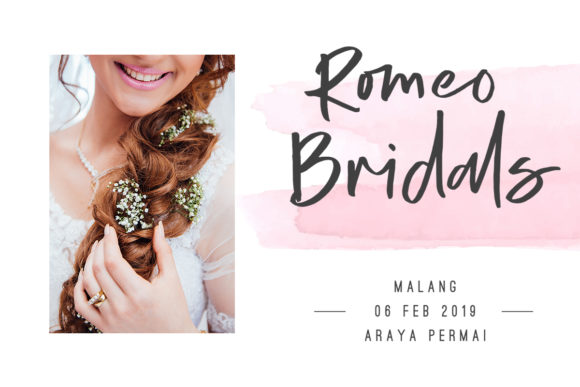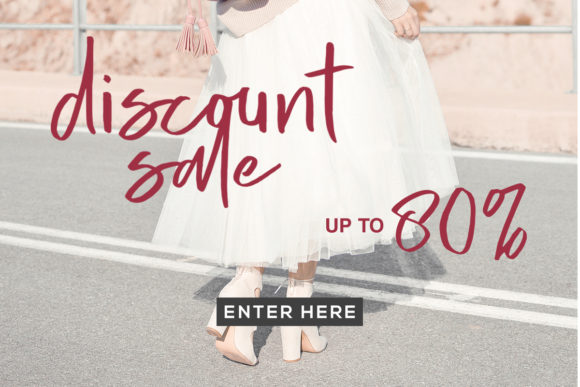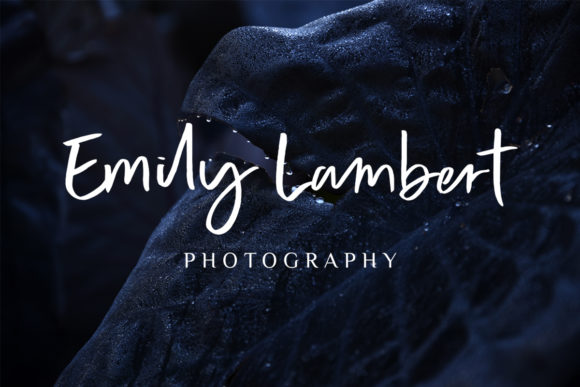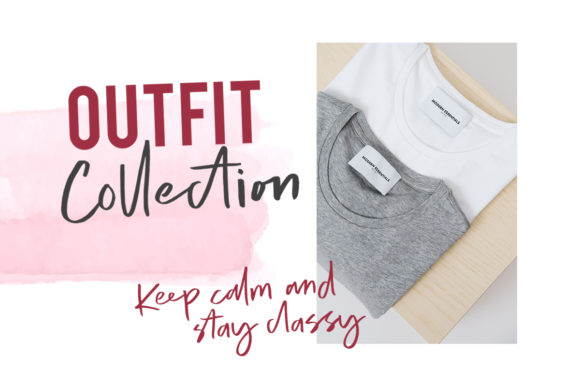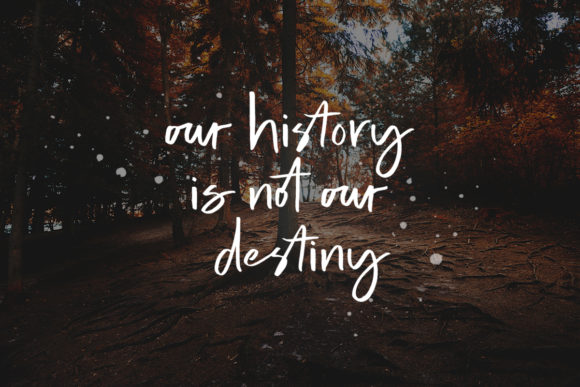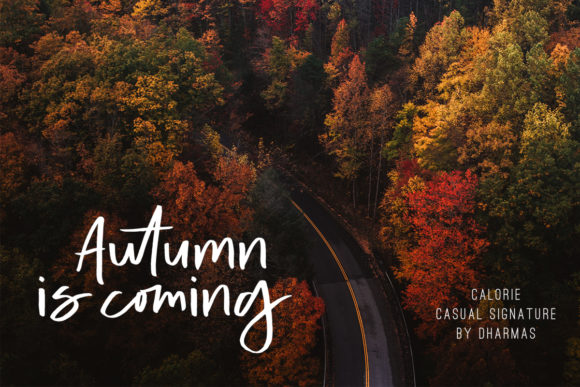
Introducing Calorie Font: The Perfect Rustic Script for Designers and Crafters
Are you a designer or crafter looking for a unique and versatile font to elevate your creative projects? Look no further than Calorie Font, a rustic, textured script that’s perfect for logos, branding, quotes, social media, and even lettered wrapping paper!
What is Calorie Font?
Calorie Font is a beautifully crafted script font that boasts a charming, rustic feel. Its textured appearance gives it a distinctive, handmade look that’s sure to add a touch of personality to any design. The font is designed to work seamlessly across various mediums, from digital platforms to print materials.
Key Features of Calorie Font
- Rustic, textured script: Calorie Font’s unique texture gives it a one-of-a-kind appearance that’s perfect for designers and crafters looking to add a touch of whimsy to their work.
- Versatile: This font is suitable for a wide range of projects, including logos, branding, quotes, social media graphics, and even lettered wrapping paper.
- Easily readable: Despite its textured appearance, Calorie Font remains highly legible, making it perfect for use in both digital and print materials.
Use Cases for Calorie Font
So, what can you create with Calorie Font? The possibilities are endless! Here are a few ideas to get you started:
- Logos and branding: Create a unique and memorable logo for your business or personal brand with Calorie Font.
- Social media graphics: Add a touch of personality to your social media posts with custom graphics created using Calorie Font.
- Quotes and posters: Use Calorie Font to create eye-catching quotes and posters that are sure to grab attention.
- Lettered wrapping paper: Add a personal touch to your gifts with custom wrapping paper designed using Calorie Font.
Tips for Using Calorie Font
To get the most out of Calorie Font, here are a few tips to keep in mind:
- Experiment with colors: Calorie Font looks great in a variety of colors, so don’t be afraid to experiment and find the perfect hue for your design.
- Mix and match: Combine Calorie Font with other fonts or graphics to create a unique and visually interesting design.
- Pay attention to texture: The texture of Calorie Font is one of its standout features, so make sure to take advantage of it in your design.
Calorie Font is a versatile and charming script font that’s perfect for designers and crafters looking to add a touch of personality to their work. With its rustic, textured appearance and highly legible design, Calorie Font is sure to become a go-to font in your collection. So why wait? Download Calorie Font today and start creating!